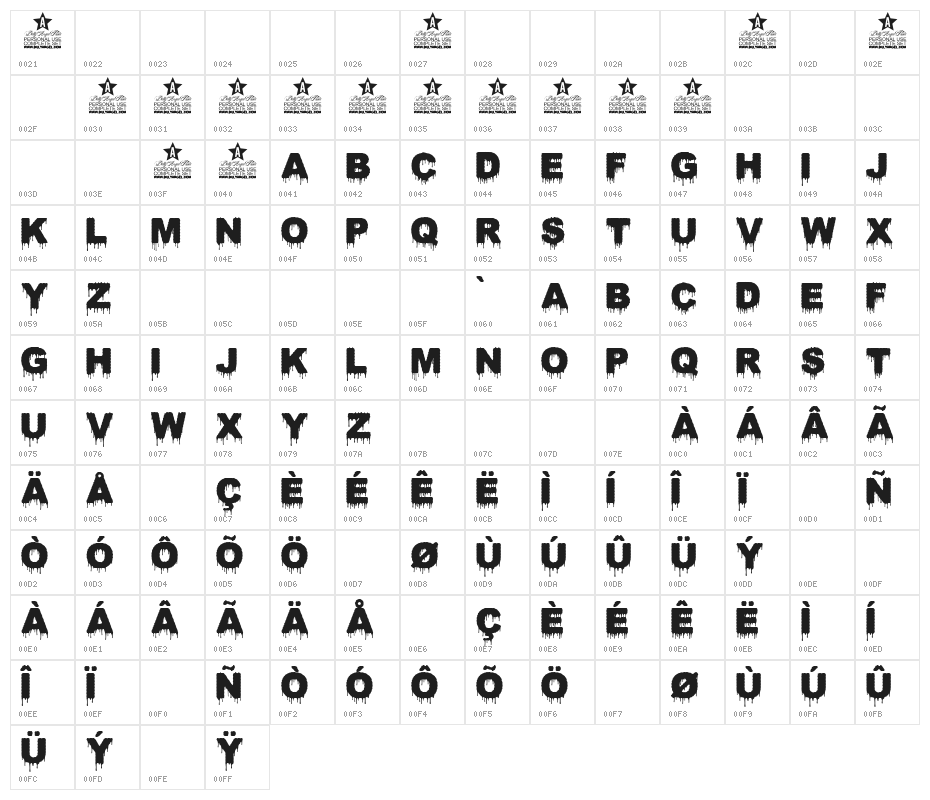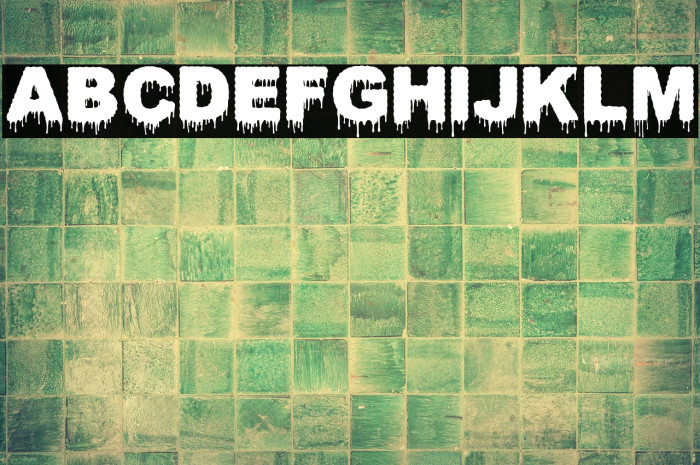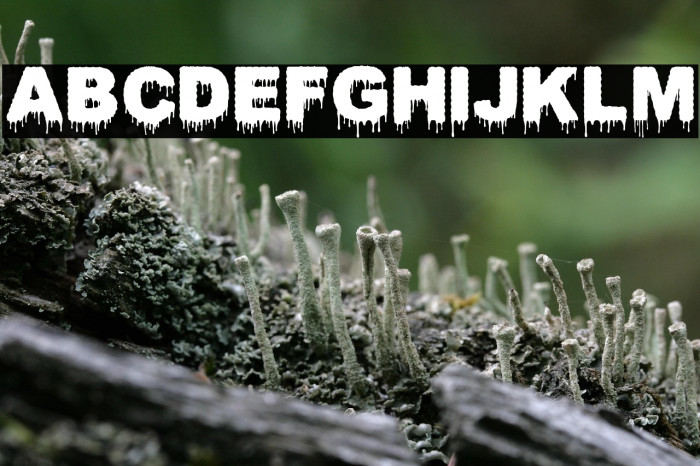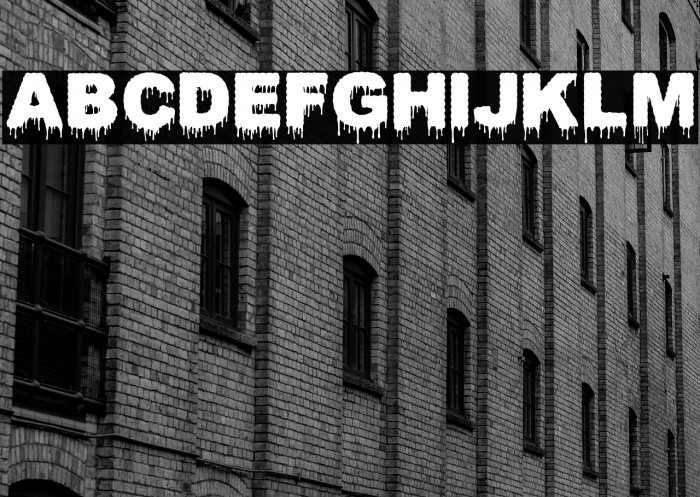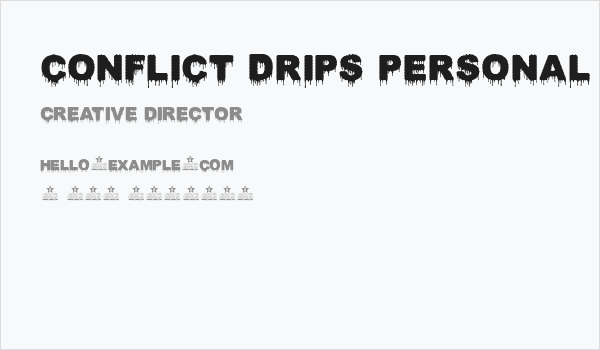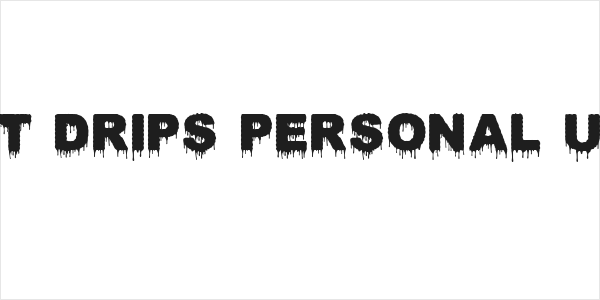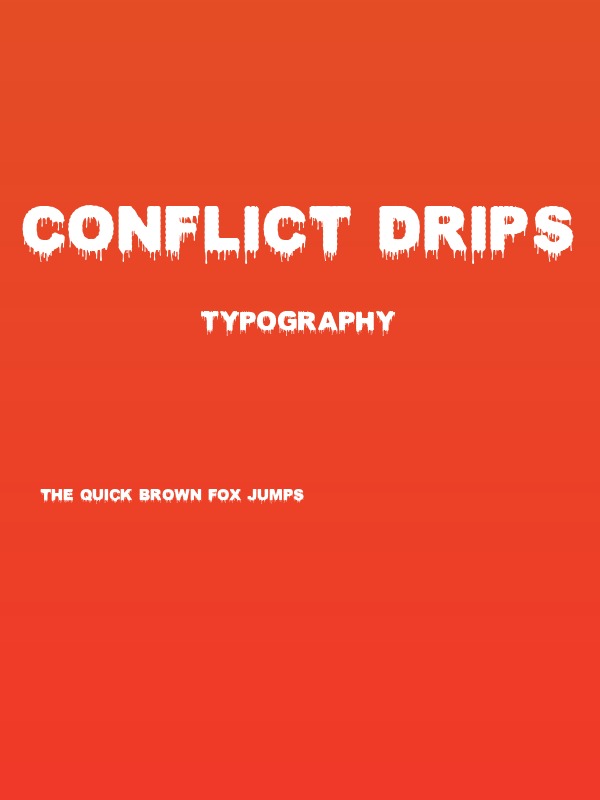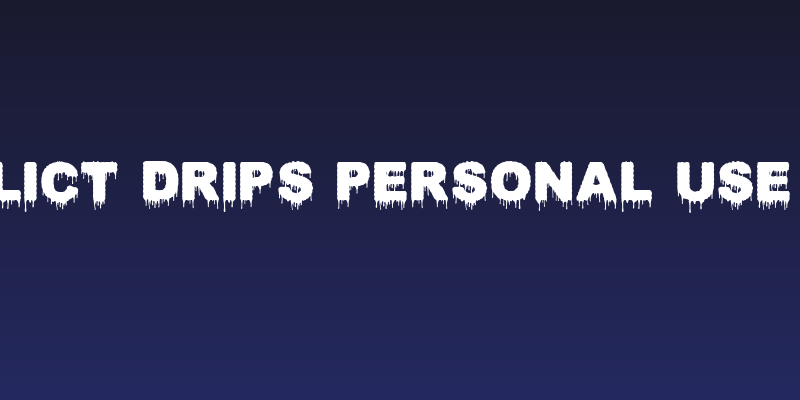
CONFLICT DRIPS PERSONAL USE Bold Font
CONFLICT DRIPS PERSONAL USE Bold Description
This bold, decorative font features a unique dripping effect that gives each character a dynamic and edgy appearance. The uppercase letters are designed with a consistent thickness, creating a strong visual impact. The drips extend from the bottom of each letter, adding a sense of movement and fluidity. This style is reminiscent of graffiti or horror-themed designs, making it ideal for projects that require a bold and unconventional look. The font maintains a uniform width across all characters, ensuring readability despite its decorative elements.